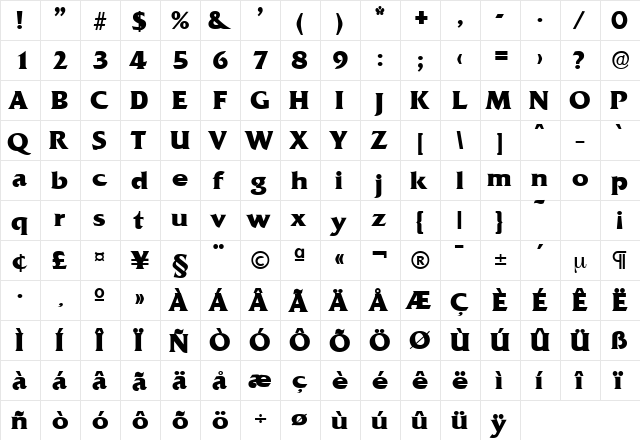
Quadrat-Serial-ExtraBold Regular
Quadrat-Serial-ExtraBold offers clean, dependable letterforms without strong stylistic allegiance, making it a practical choice for designers who need flexibility. The heavy weight commands attention and anchors typographic hierarchies.